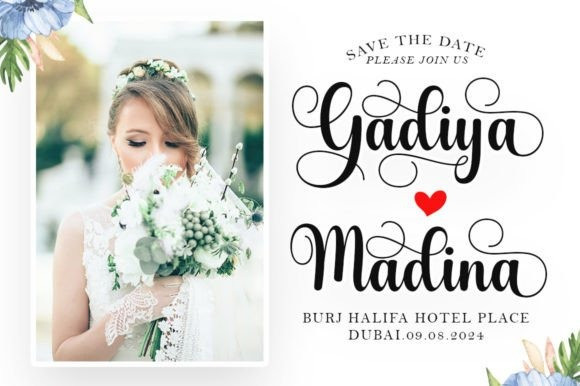
Gadiya Font
Gadiya Calligraphy Font is a delicate, elegant, and flowing handwritten font perfect for your favorite projects. Fall in love with its incredibly distinct and timeless style, and use it to create spectacular designs!